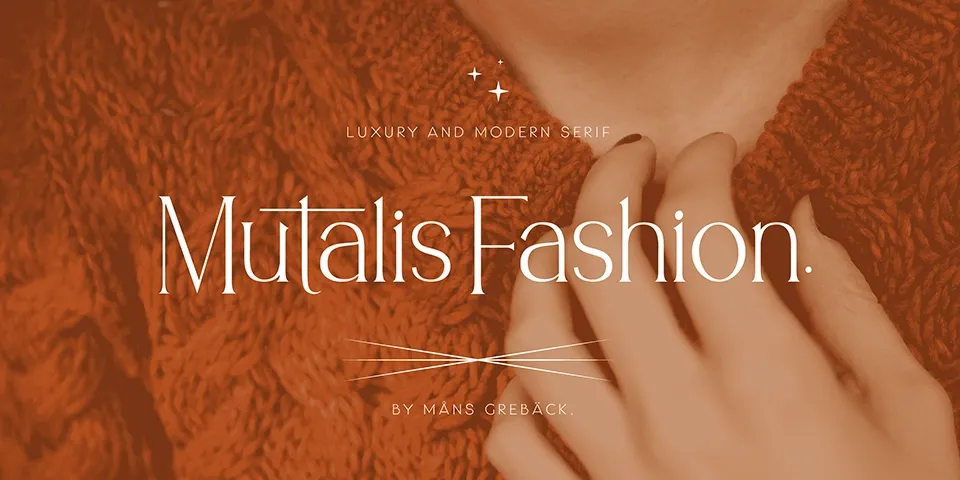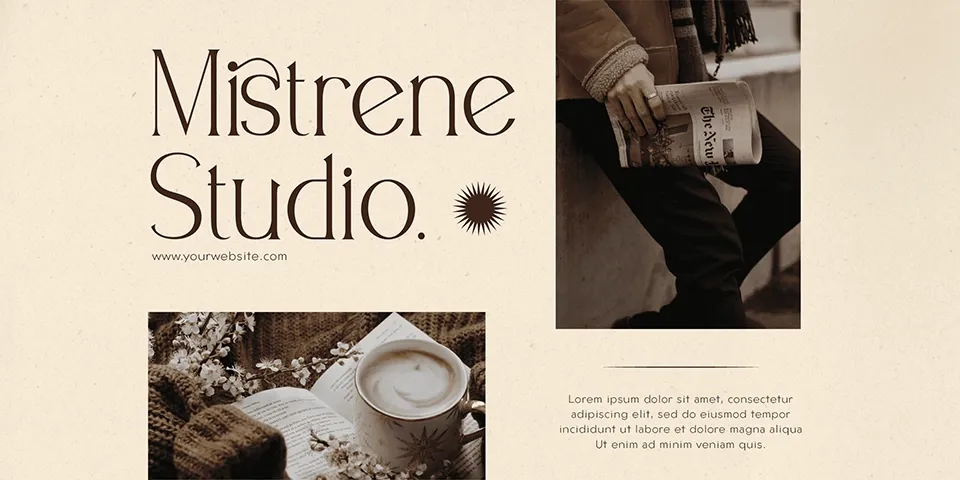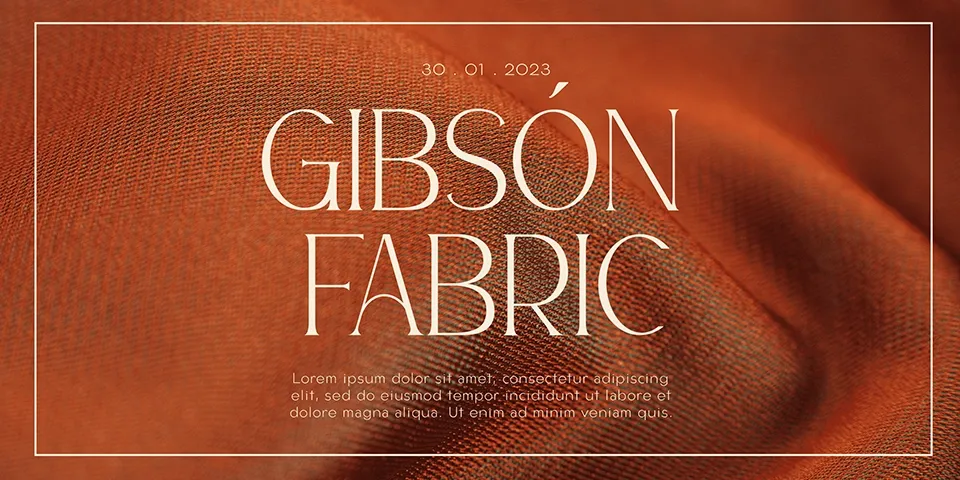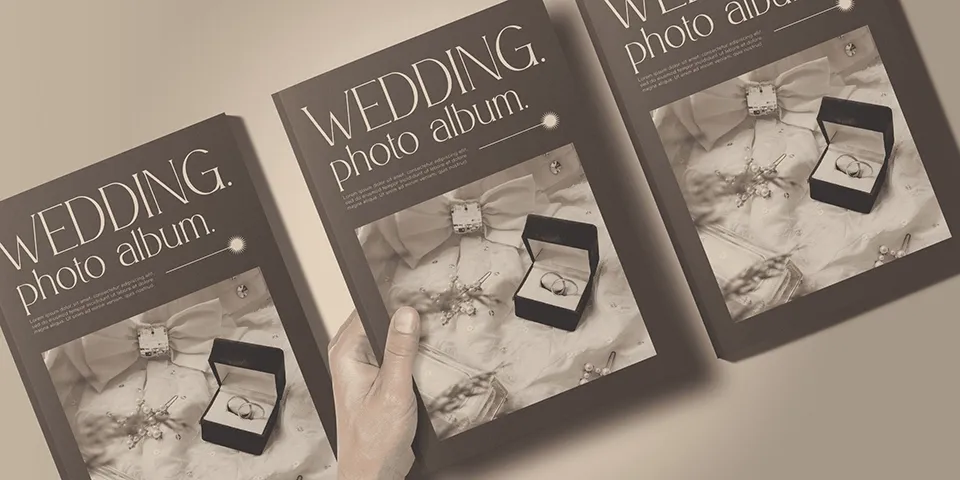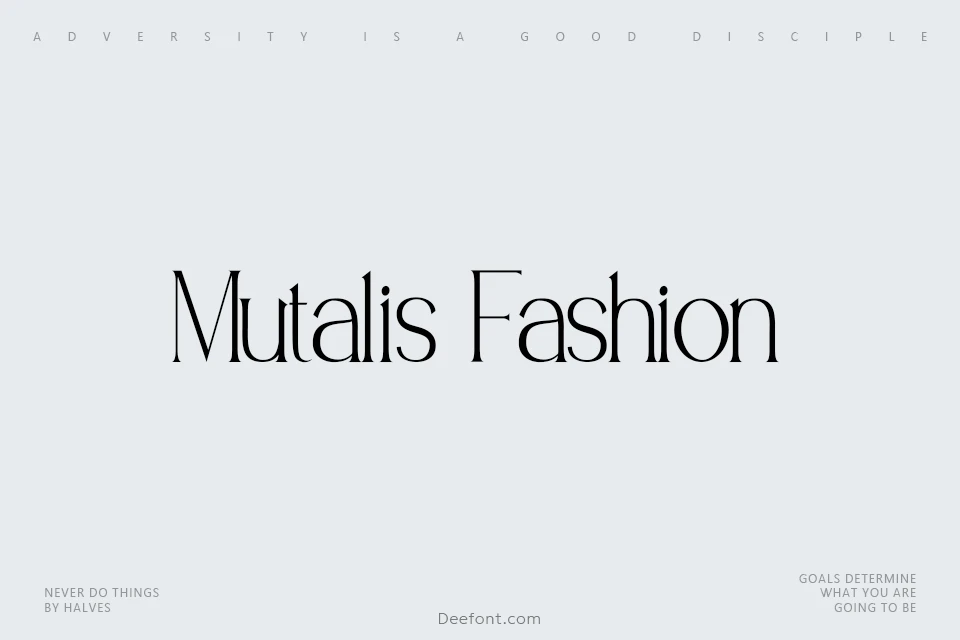
Mutalis Fashion Font
Mutalis Fashion Font is an elegant and modern serif typeface designed by Måns Grebäck. With its refined lines and stylish details, this font perfectly blends contemporary aesthetics with classic sophistication, making it ideal for luxury branding, editorial design, and high-end fashion projects.